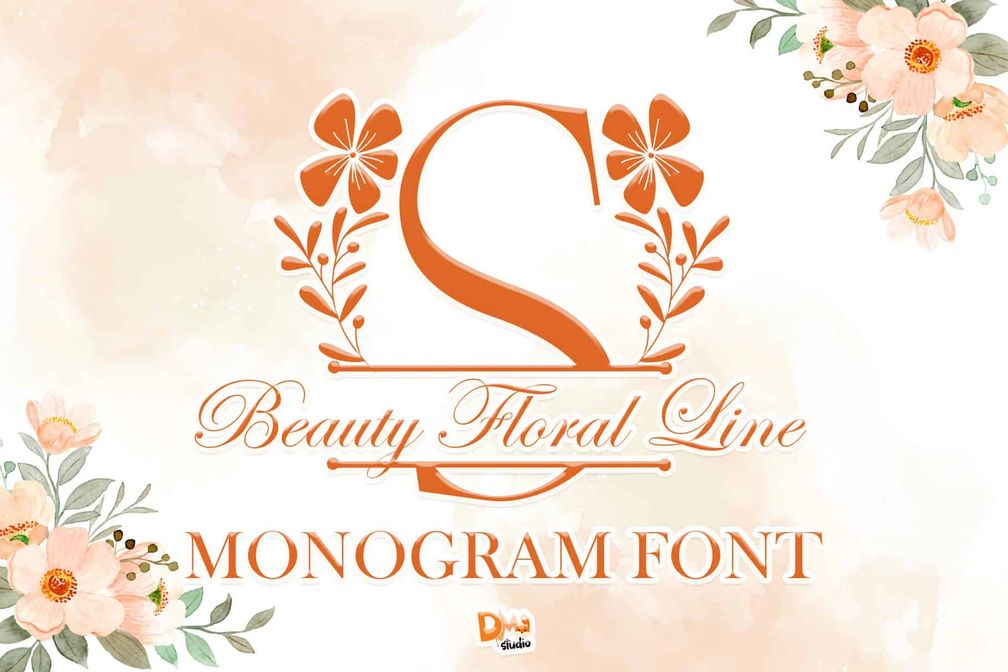
Beauty Floral Line Monogram
Beauty Floral Line Monogram – Elegant & Floral-Inspired Monogram Font
Beauty Floral Line Monogram is a sophisticated and ornamental monogram font featuring delicate floral line art within each letter. This decorative typeface is ideal for wedding invitations, luxury branding, personalized stationery, boutique packaging, and artistic projects. Its graceful botanical elements bring a timeless and elegant charm to any design.
• Intricate Floral Line Art: Each letter is beautifully designed with delicate floral elements.
• Timeless & Ornamental Aesthetic: A graceful blend of floral elegance and monogram sophistication.